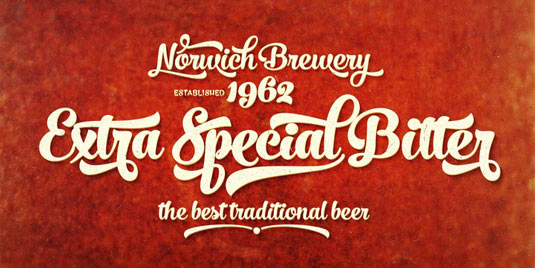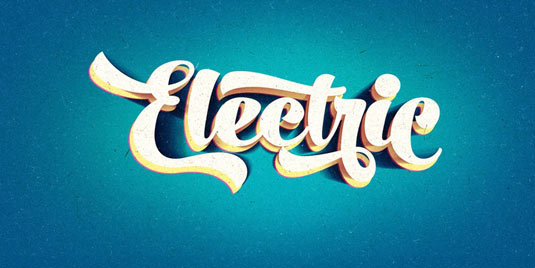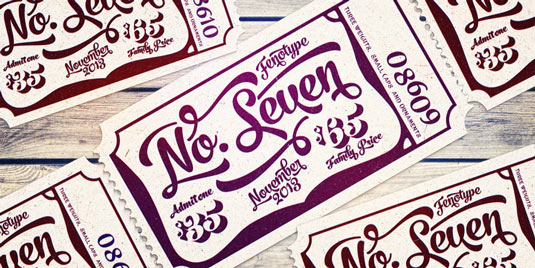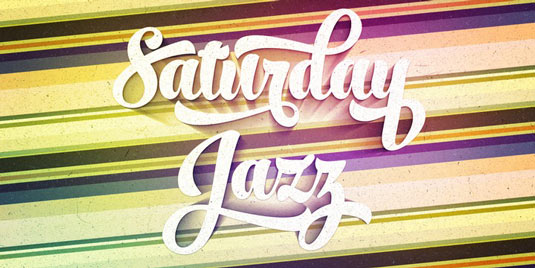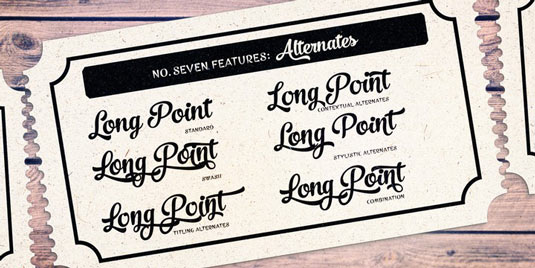
Font of the day: No. Seven
No. Seven by Emil Karl Bertell
No. Seven by Finnish type designer and illustrator Emil Karl Bertell is a bold brush-style script family, equipped with various OpenType features. Available from MyFonts, the design is described as "an effective font for creating ambitious headlines, logos and posters with a custom-made feeling".